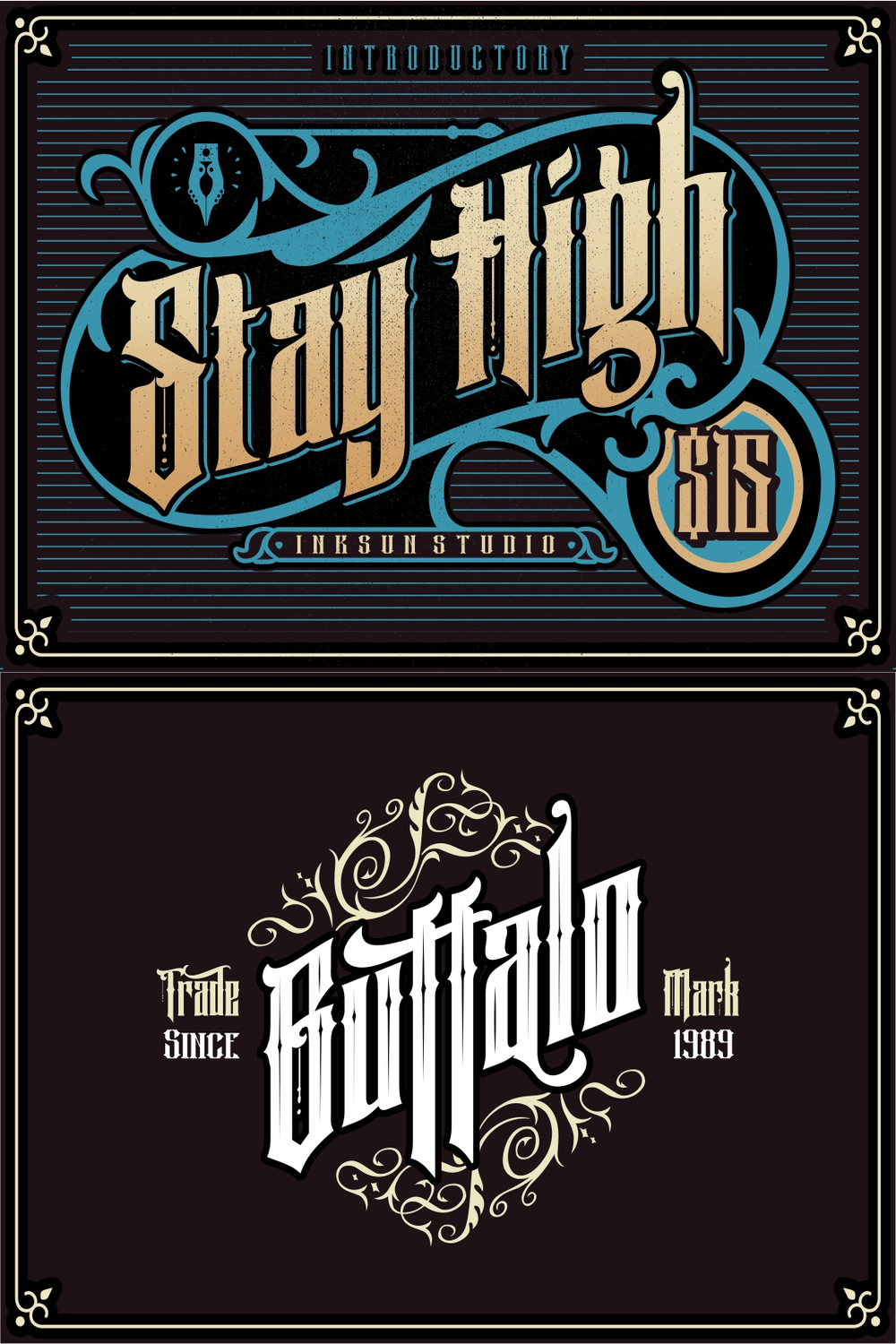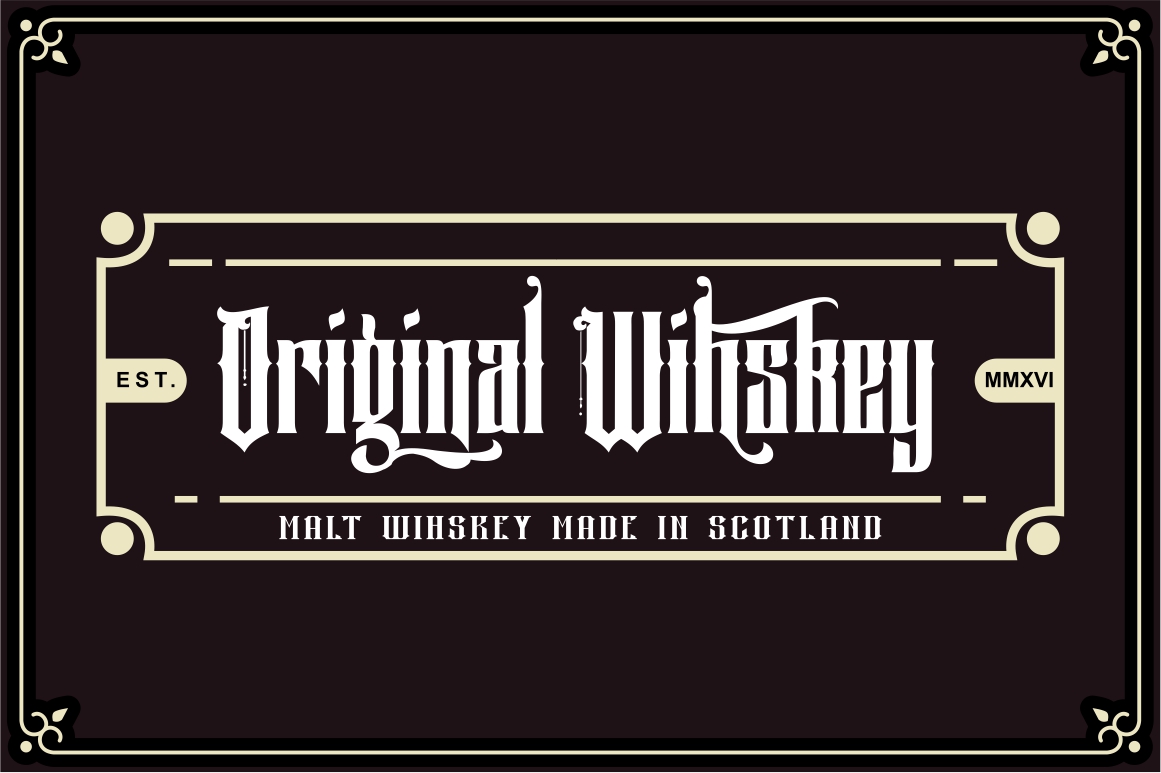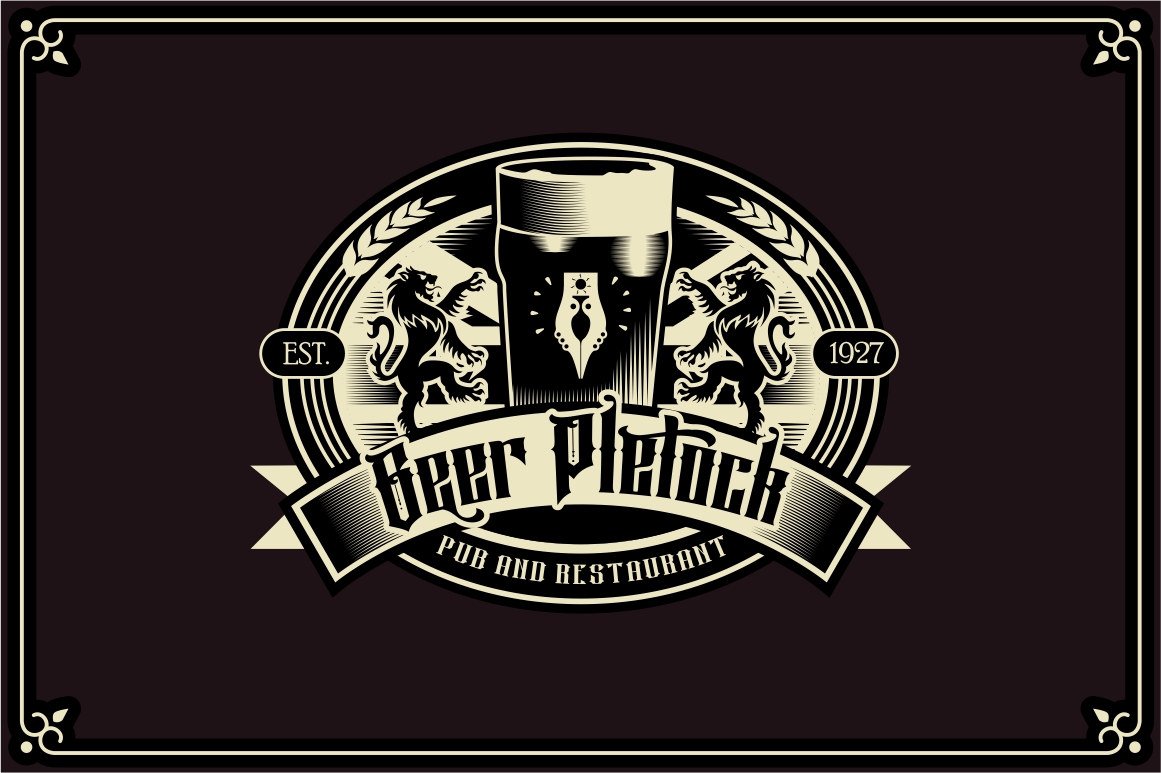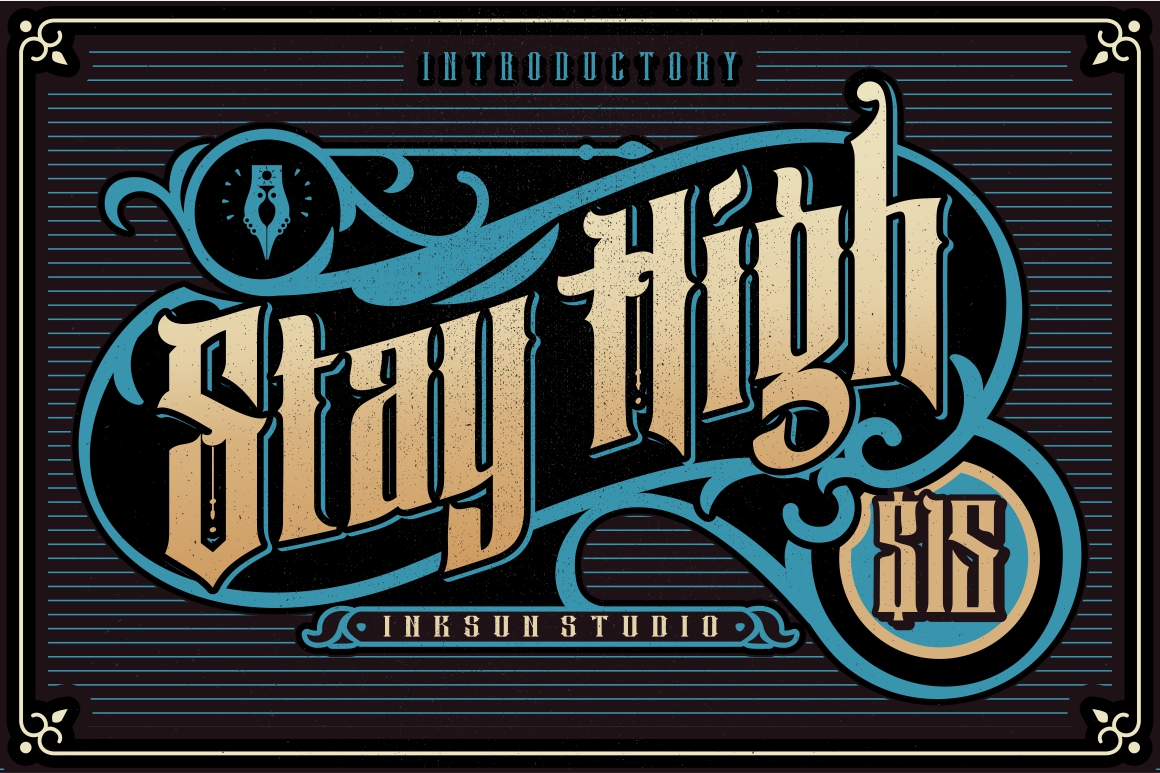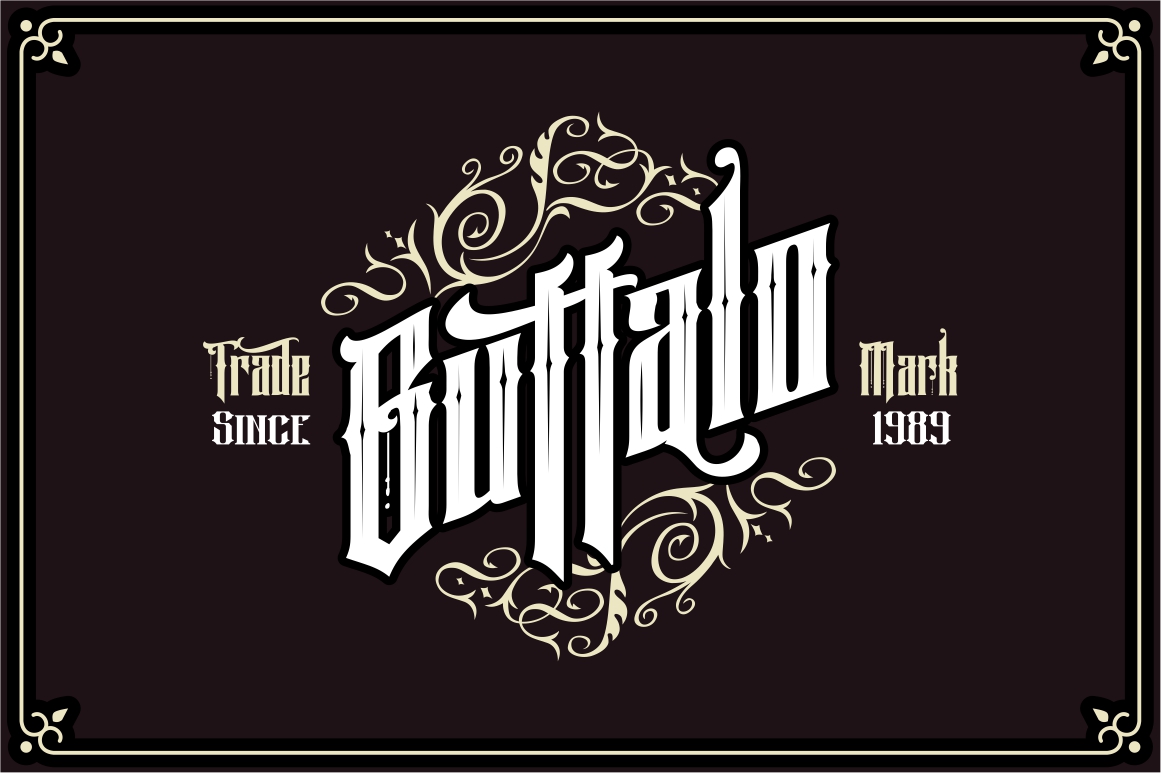
Stay High Font: Vintage Blackletter Typography for Bold Logo Design
About the Stay High Font
Welcome to the world of Stay High Font, a typeface that will inspire your next great project. Stay High is a blackletter font peppered with modern vintage style. With the addition of the Black Oval font, this set is absolutely a stylistic, brazenly designed dream.
Stay High Font Usage Examples